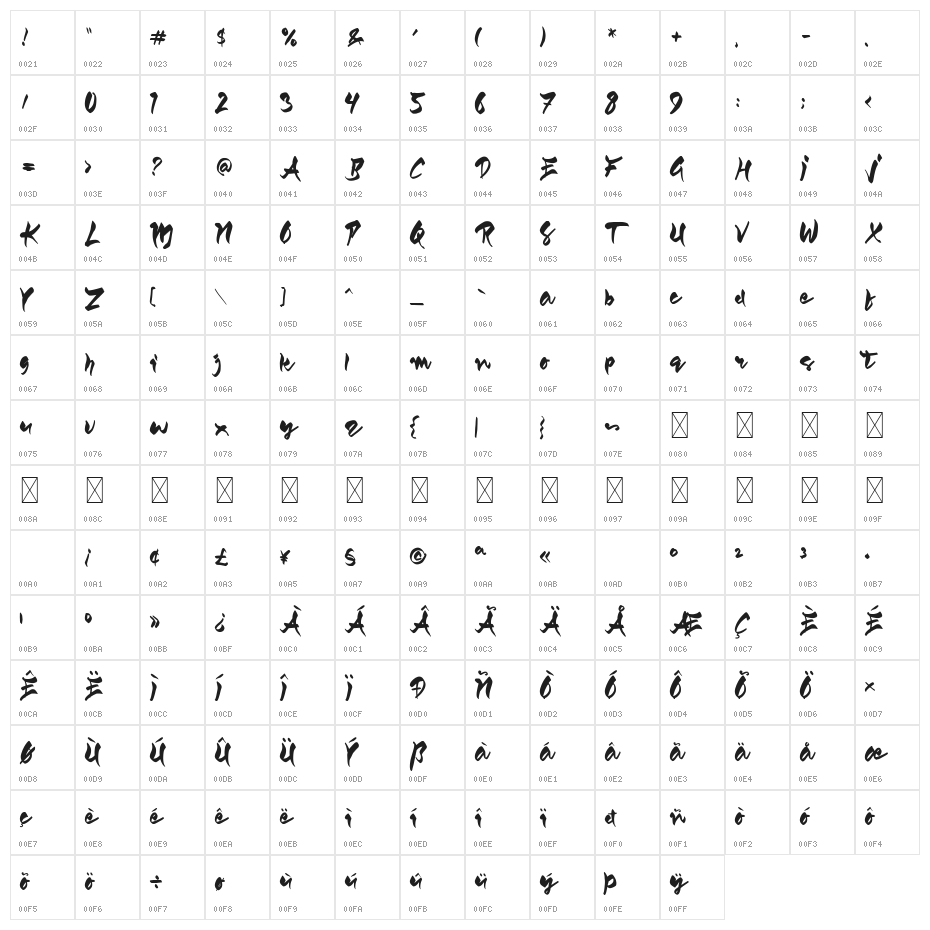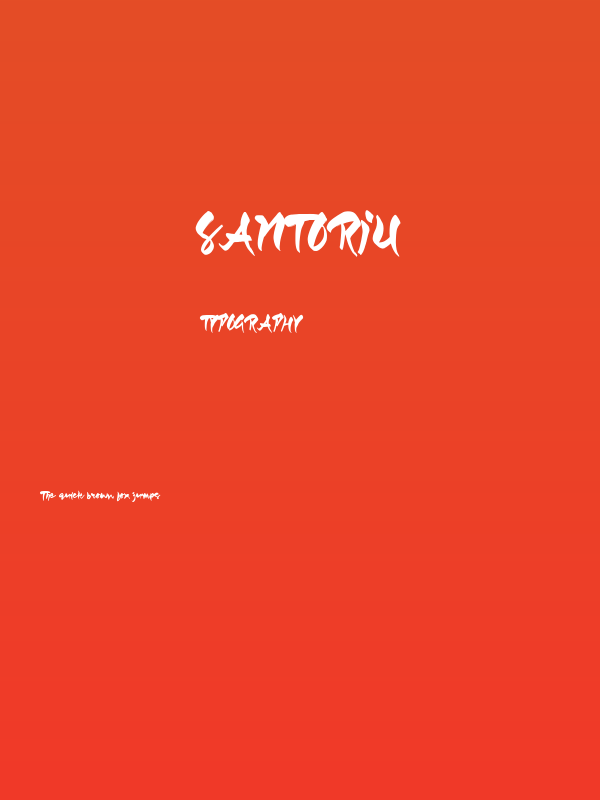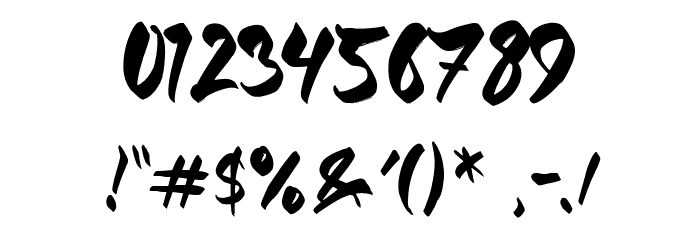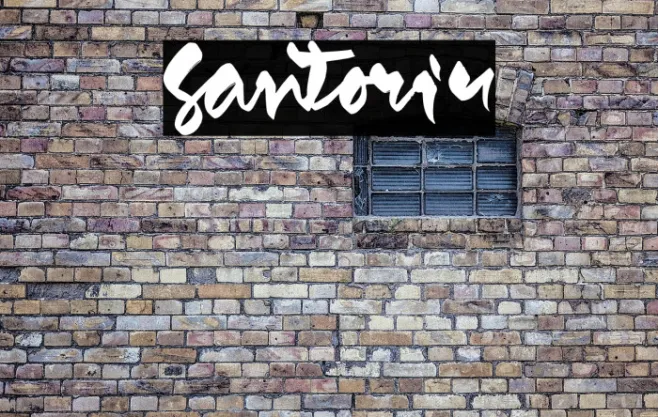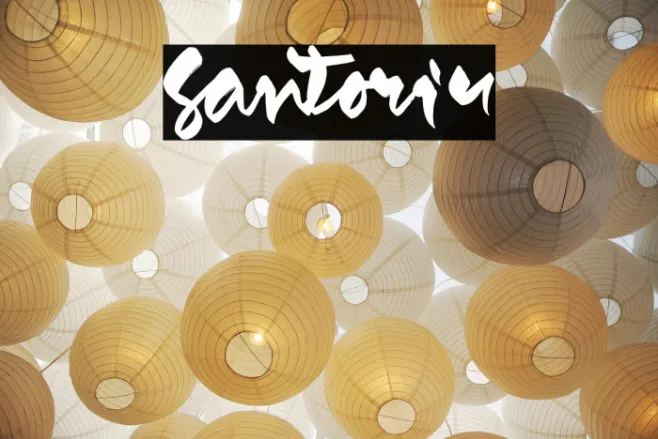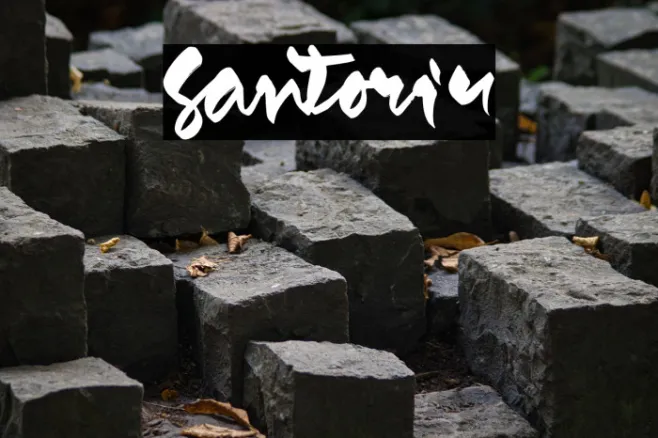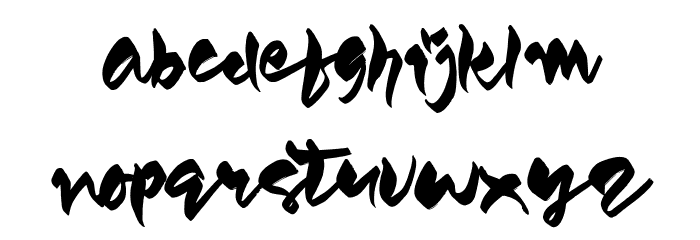
Santoriu Font
This font exhibits a bold and expressive handwritten style, characterized by its dynamic and fluid strokes. The letters are crafted with a sense of movement, giving them a lively and energetic appearance. The uppercase and lowercase letters maintain a consistent style, with some letters featuring unique flourishes that add to the overall artistic feel. The numbers and special characters are designed to match the boldness and style of the alphabet, ensuring a cohesive look across all characters. This font is ideal for projects that require a personal touch or a creative flair.
| Use Case | Logos, Headlines, Artistic designs |
| Proposed Projects | Ideal for creative projects such as invitations, posters, branding, and artistic designs. |